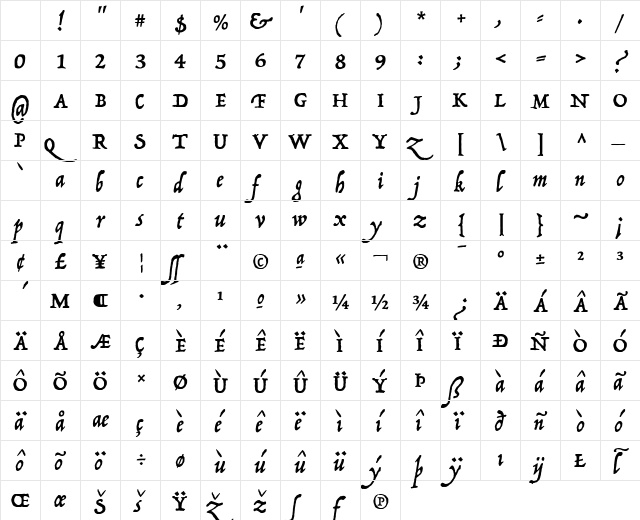
Complete P22 Operina Romano Regular glyph index. Displaying only characters natively supported by P22 Operina Romano Regular font.
P22 Operina Romano is a composed and adaptable typeface that performs quietly and consistently across a wide range of design contexts.